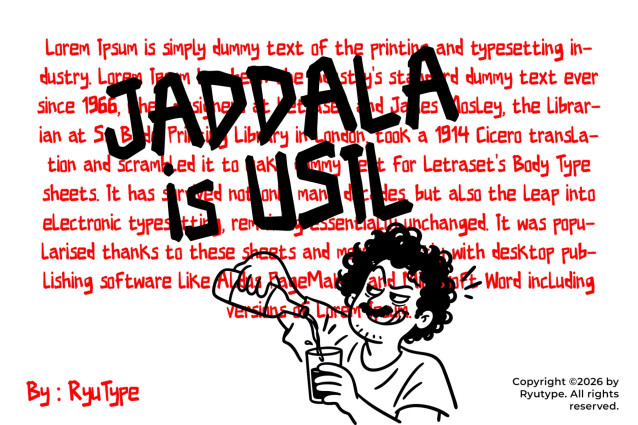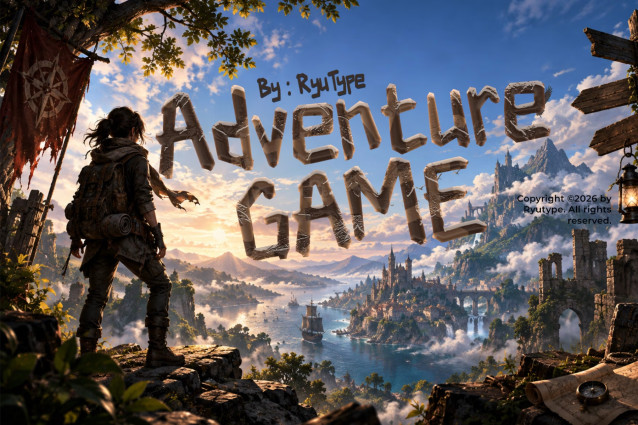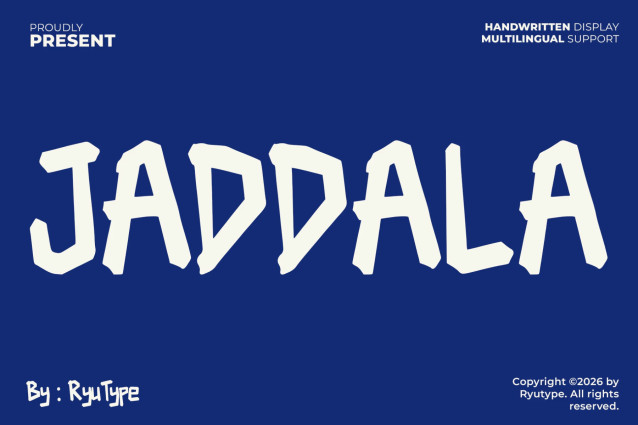
JADDALA is a bold handwritten display typeface with a rugged, angular personality. Its irregular edges, sharp corners, uneven strokes, and hand-crafted construction create a raw and energetic visual style. The letters feel imperfect in an intentional way, giving the font a strong handmade and adventurous character.
Perfect for adventure branding, outdoor designs, travel posters, gaming graphics, streetwear, camping projects, action-themed artwork, posters, album covers, logos, packaging, and bold headlines.